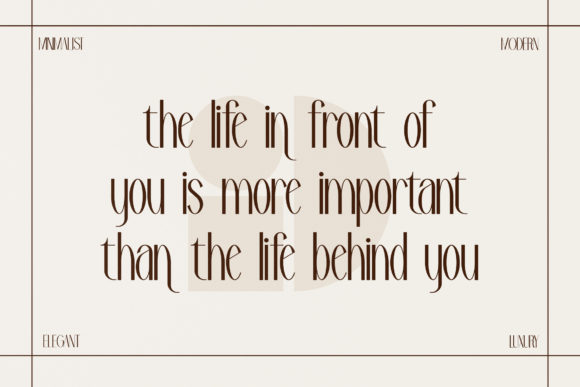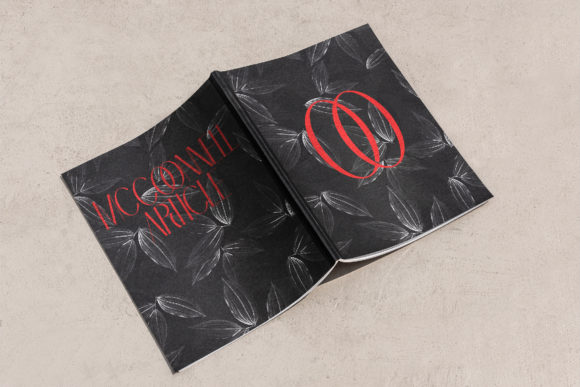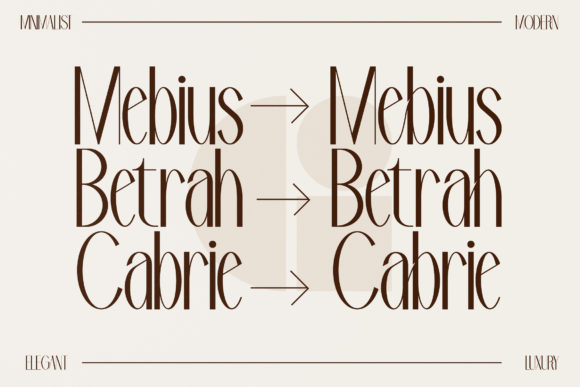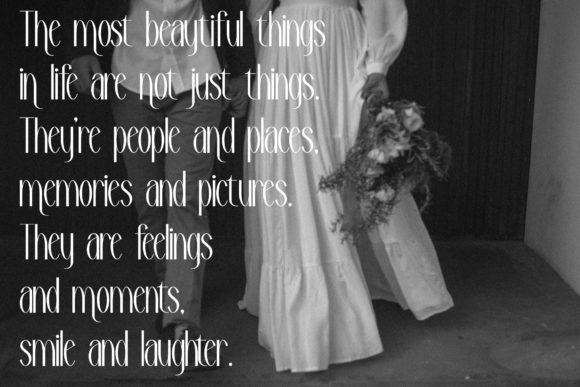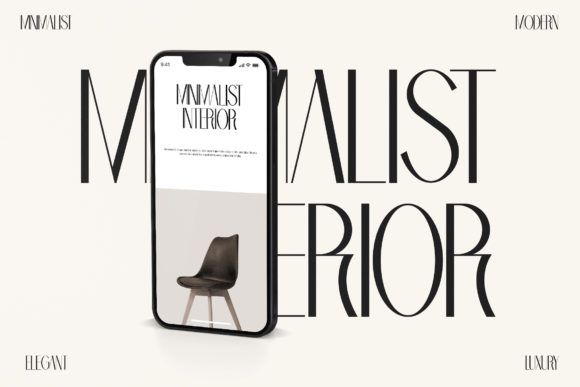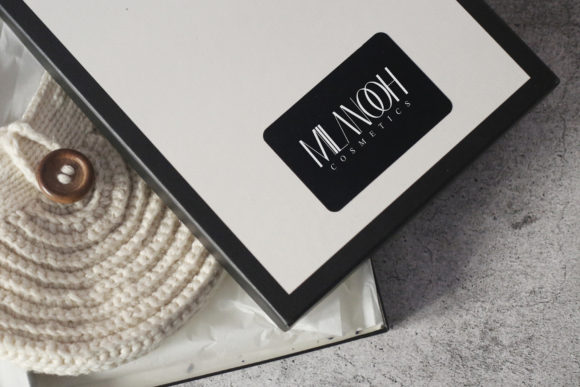
Ganesha Font: Elevate Your Designs with Elegance and Sophistication
In the world of typography, a font can make or break a design. For designers and crafters seeking to infuse their projects with a touch of elegance and luxury, the Ganesha Font is an exceptional choice. This stylish and clean sans serif font has been crafted to perfection, making it ideal for a wide range of applications, from logo design and book titles to fashion branding and lettering.
What Makes Ganesha Font Stand Out?
Ganesha Font is not just another typeface; it’s a design statement. Its sans serif design lends a modern and sleek look to any project, while its clean lines ensure that the message is conveyed with clarity and precision. This font is perfect for designers who aim to create a lasting impression with their work.
One of the key advantages of the Ganesha Font is its versatility. It can be used across various mediums and projects, including:
- Elegant & Luxury Logos: Create memorable brand identities with a sophisticated touch.
- Book or Movie Title Design: Add a professional and cinematic feel to your titles.
- Fashion Brand: Elevate your fashion brand’s visual identity with a stylish and modern font.
- Magazine: Use Ganesha Font for headings or body text to give your magazine a sleek and contemporary look.
- Clothes: Perfect for designing labels, tags, or promotional materials for clothing lines.
- Lettering and Quotes: Bring out the best in your lettering and quote designs with the elegant curves and lines of Ganesha Font.
Ganesha Font comes with PUA (Private Use Area) encoding, a significant advantage for designers. PUA encoding allows easy access to all glyphs and swashes, providing the flexibility needed to customize and enhance your designs. This feature is particularly beneficial for projects that require a high level of detail and personalization.
Why Choose Ganesha Font?
Choosing Ganesha Font for your design projects comes with numerous benefits:
- Elegance: Adds a sophisticated and luxurious feel to your designs.
- Versatility: Suitable for a wide range of projects, from digital to print.
- Readability: Its clean sans serif design ensures excellent readability.
- Customization: With PUA encoding, customizing your designs is straightforward.
Tips for Using Ganesha Font
To get the most out of Ganesha Font, consider the following tips:
- Pair it Wisely: Combine Ganesha Font with complementary fonts to create visual interest.
- Play with Sizes: Use different font sizes to establish a hierarchy in your design.
- Utilize Swashes: Take advantage of the glyphs and swashes to add a creative touch to your text.
Ganesha Font is more than just a typeface; it’s a tool that can elevate your designs to new heights of elegance and sophistication. Its versatility, combined with the ease of use provided by PUA encoding, makes it an excellent choice for designers and crafters looking to make a statement. Whether you’re working on a luxury brand logo, a movie title, or a fashion magazine, Ganesha Font is sure to enhance your project’s aesthetic appeal.